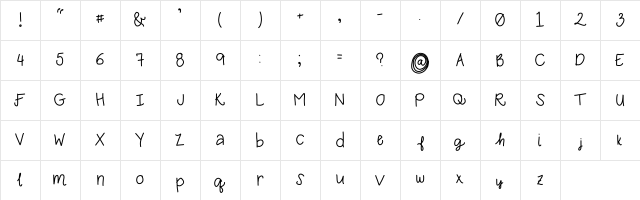
karebear Medium
Design Context for karebear
karebear is a composed and adaptable typeface that performs quietly and consistently across a wide range of design contexts.